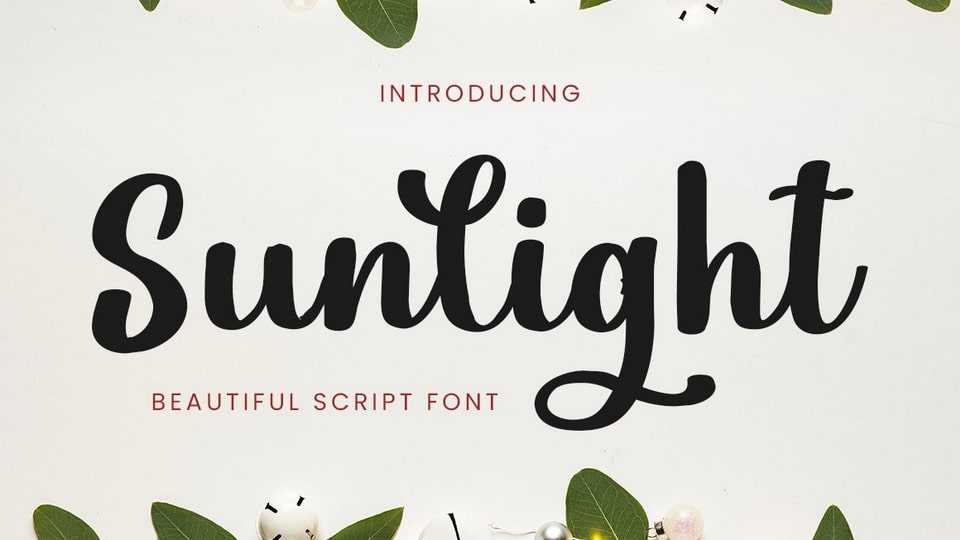
Download Sunlight font, a sweet script and modern calligraphy with a beauty feel. Its distinct and well rounded letters make this font a masterpiece.